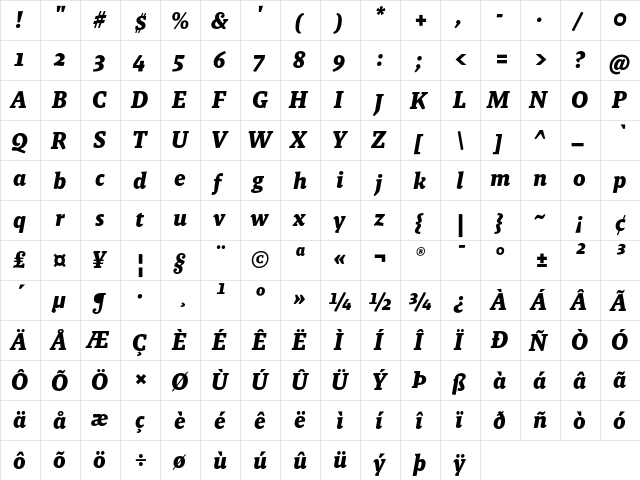
Malaga OT Bold Italic
Bold Italic · Emigre Inc. Xavier Dupre ·
Design Context for Malaga OT Typeface
Malaga OT is a composed and adaptable typeface that performs quietly and consistently across a wide range of design contexts. Its italic angle brings a sense of urgency and motion to the letterforms. Its bold stroke weight gives it real presence on the page.
Pro Tip: Try Malaga OT for annotation and caption copy alongside an upright companion — the contrast in angle creates a dynamic but ordered typographic system.